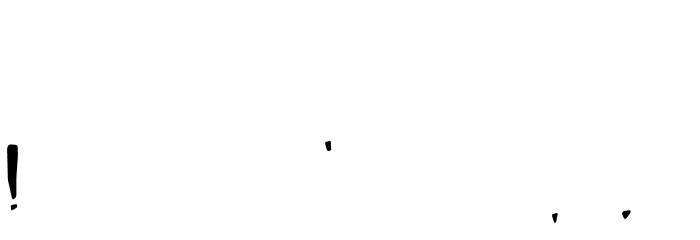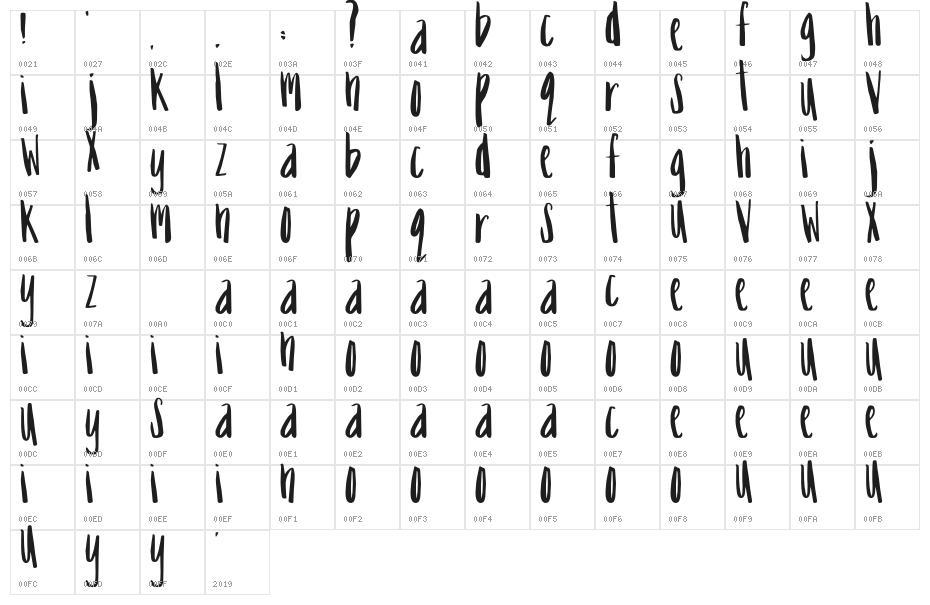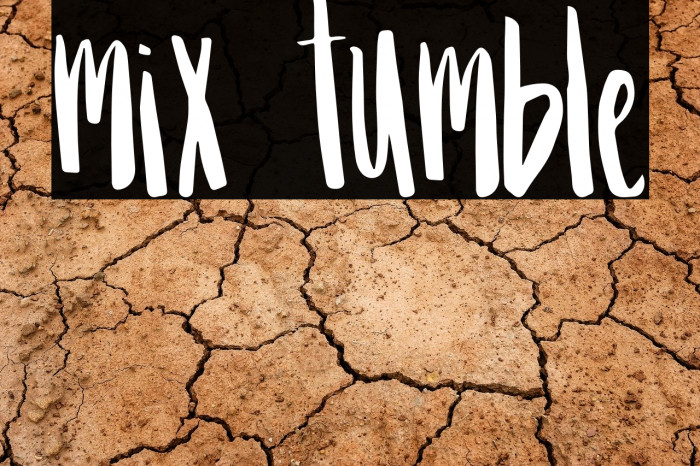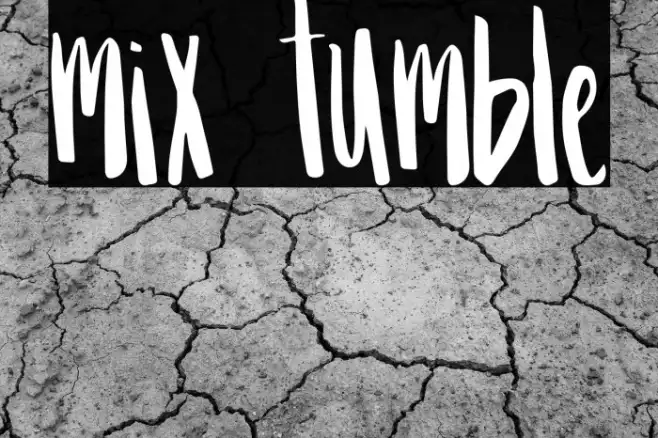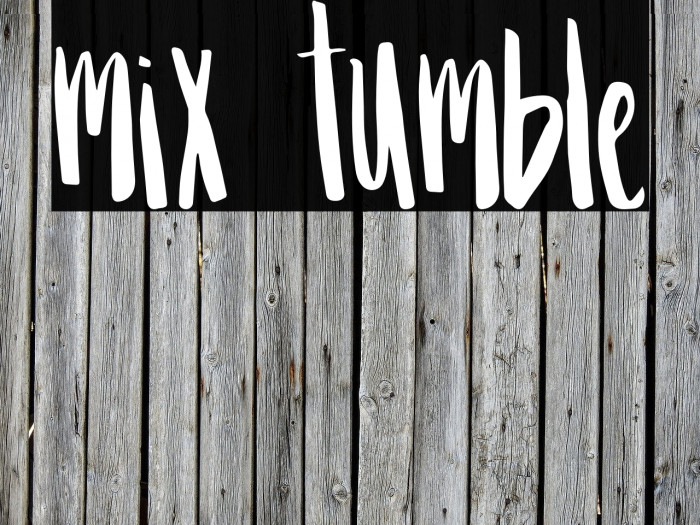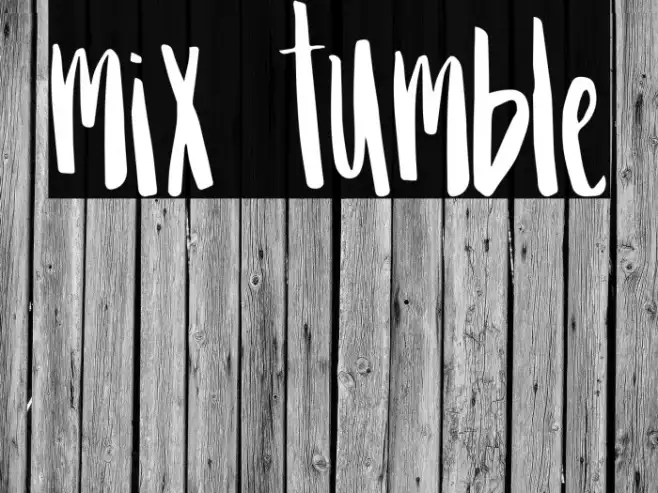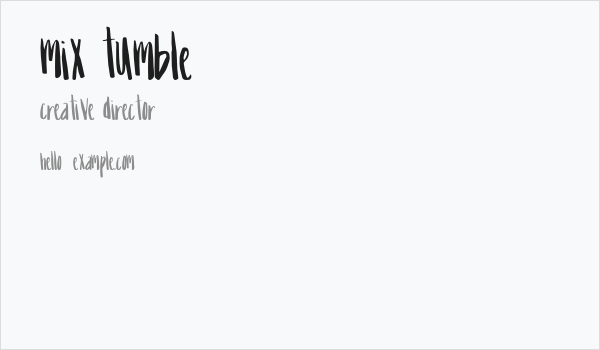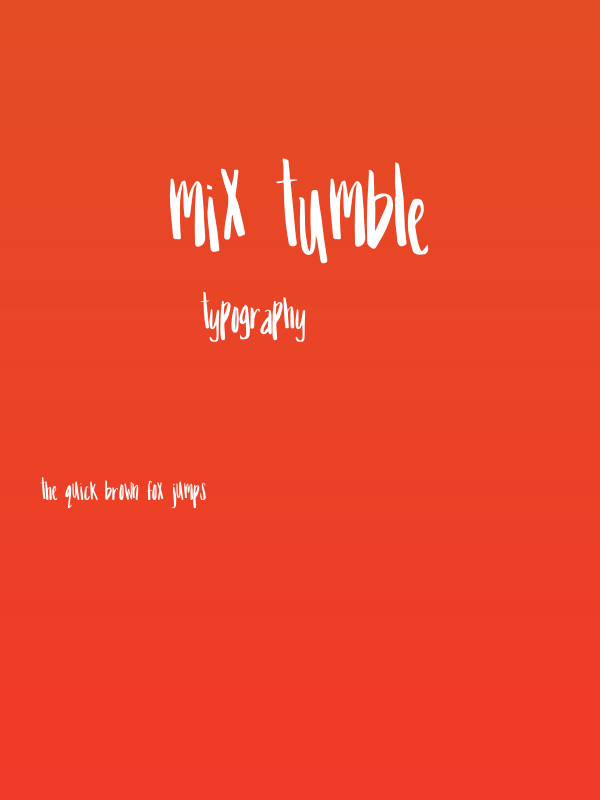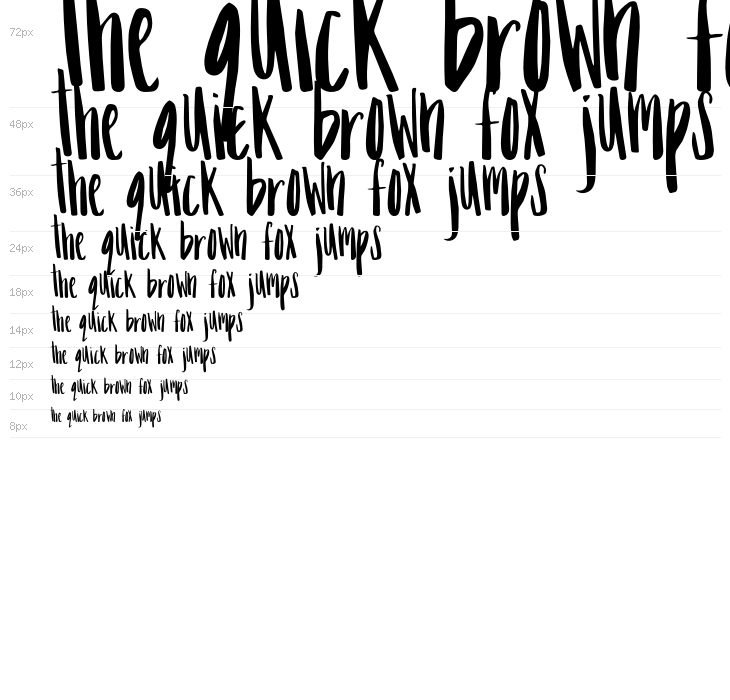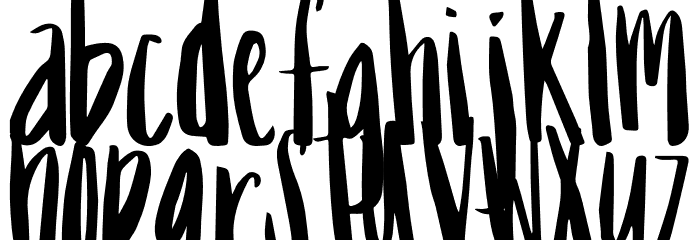
Mix Tumble Font
Mix Tumble Description
This font features a playful and dynamic style with tall, narrow characters that exhibit a hand-drawn, whimsical quality. The letters have a slightly irregular baseline, adding to the casual and informal feel. The strokes are bold and consistent, with a moderate contrast between thick and thin lines. The overall appearance is energetic and lively, making it suitable for creative and artistic projects. The font's unique character shapes and varying heights contribute to its distinctive personality, making it stand out in any design.
Proposed ProjectsIdeal for children's books, creative posters, playful branding, and artistic invitations.